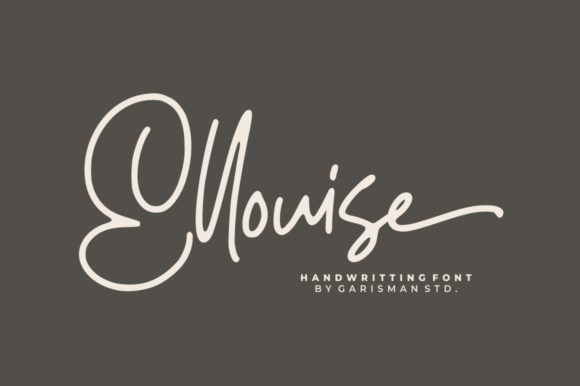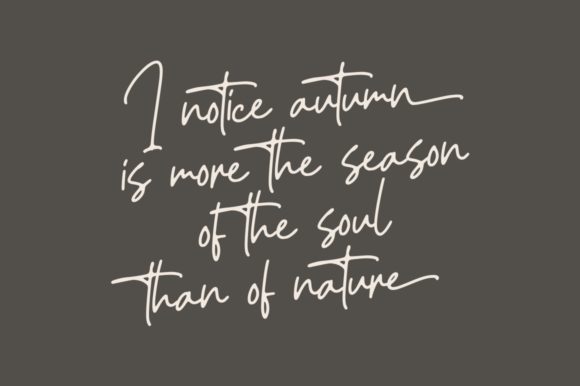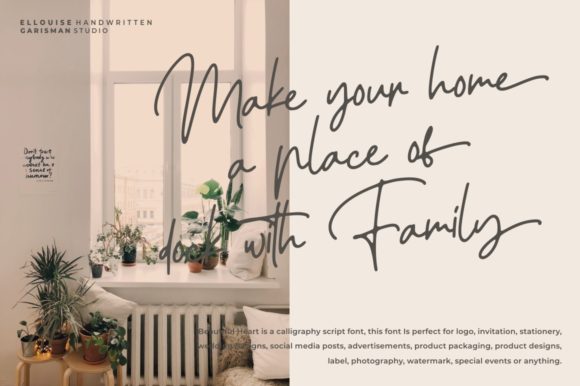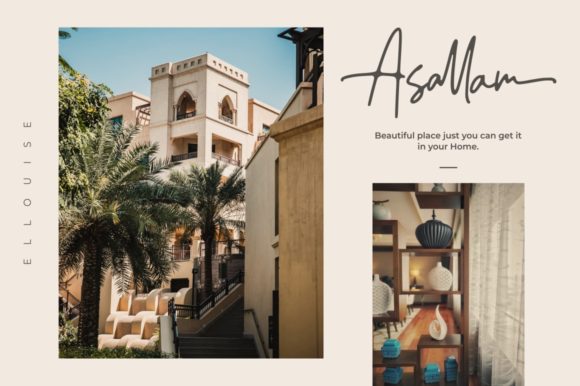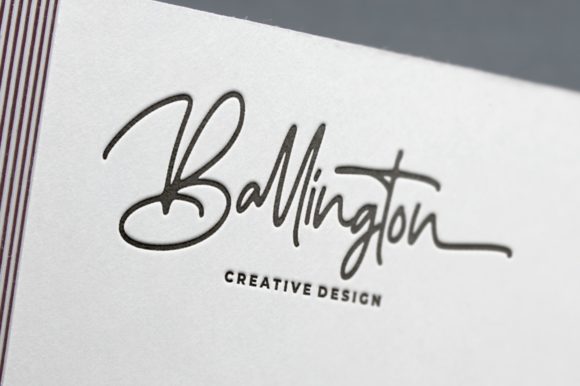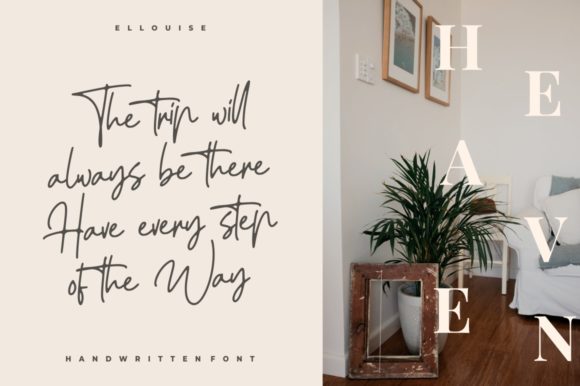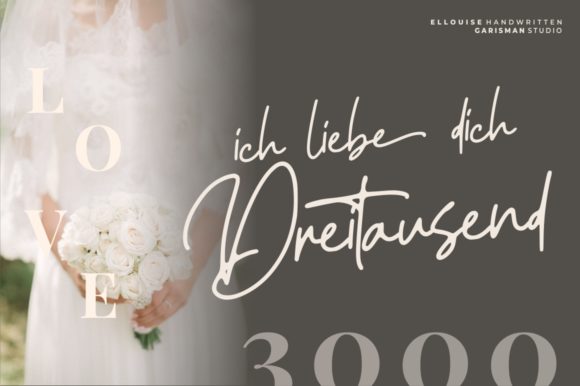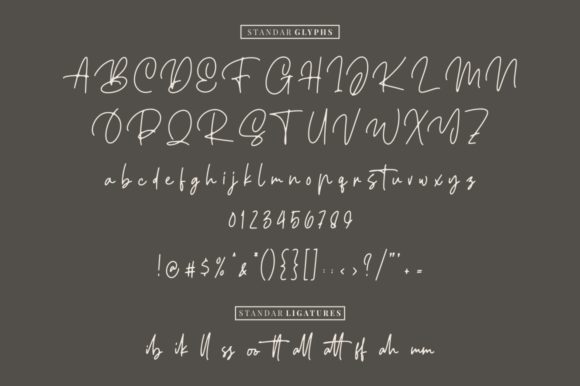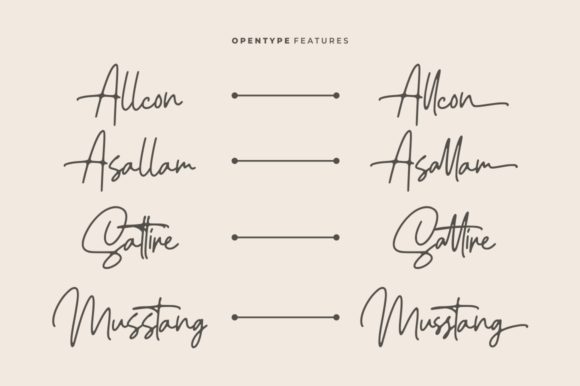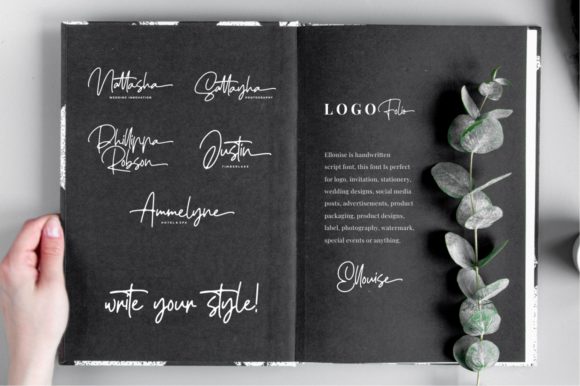
Ellouise Font
About Ellouise Font
Ellouise is a unique and sophisticated script font. It has great ligatures that will add a beautiful touch to any craft project.